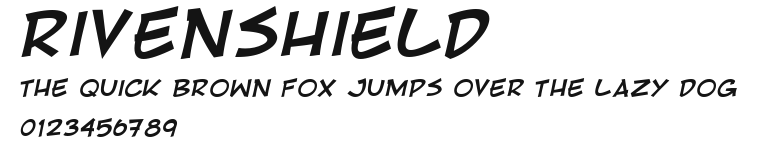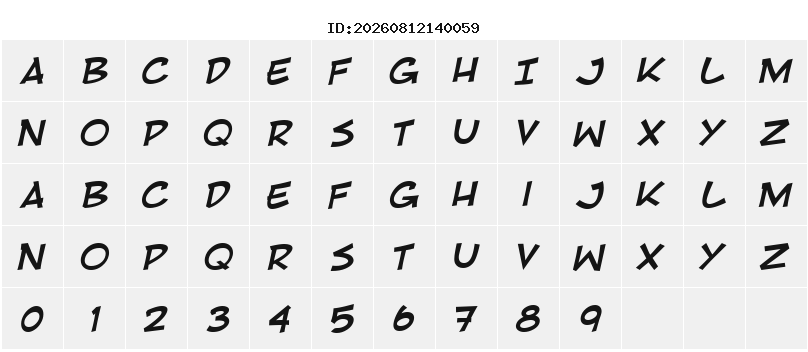
RivenShield Preview
• Font Name: RivenShield
• Full Font Name: RivenShield Italic
• PostScript Name: RivenShieldItalic
About RivenShield.ttf
RivenShield.ttf is a modern, elegant sans-serif font designed for ultimate readability and visual harmony. Perfect for branding, headlines, web design, and print materials.